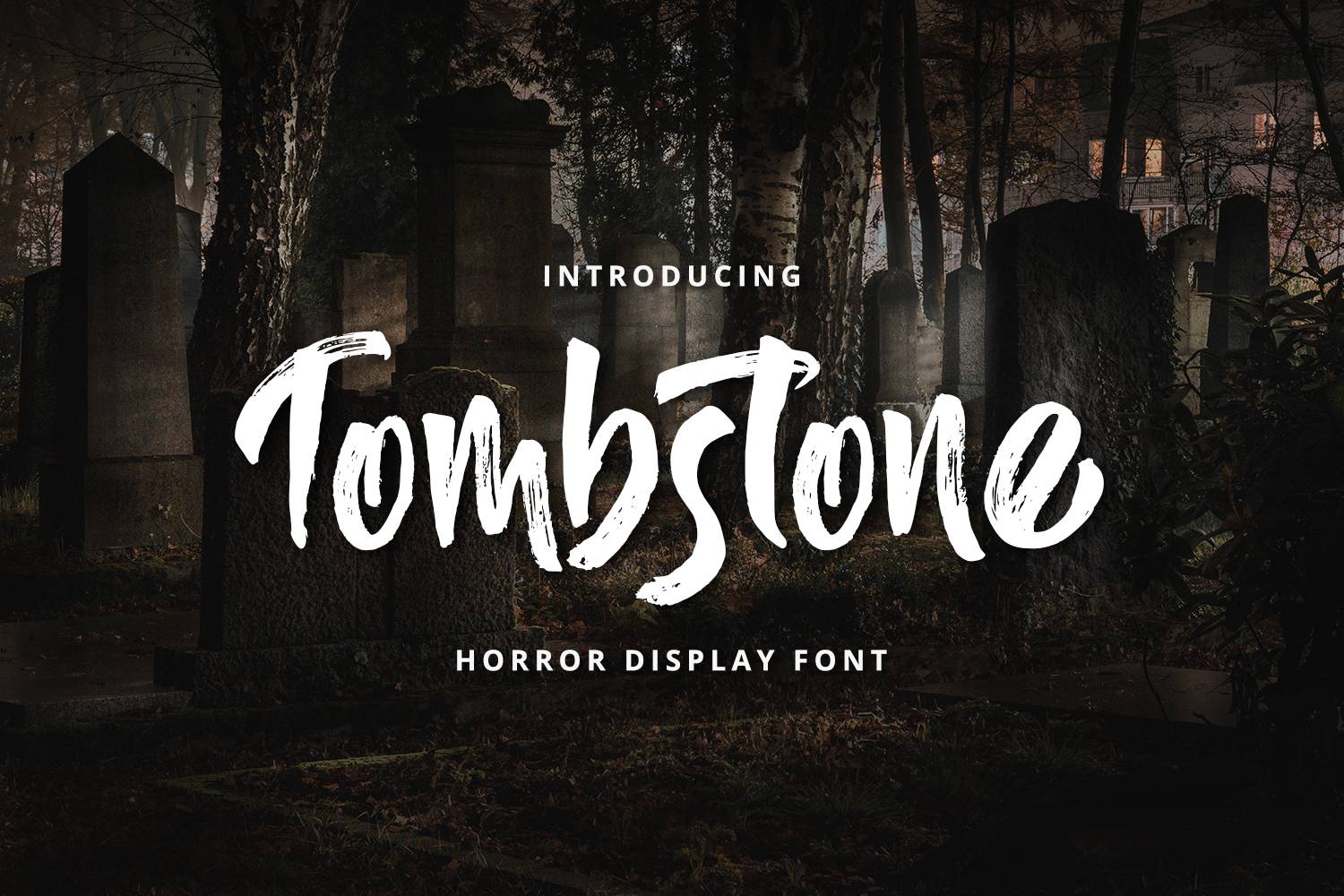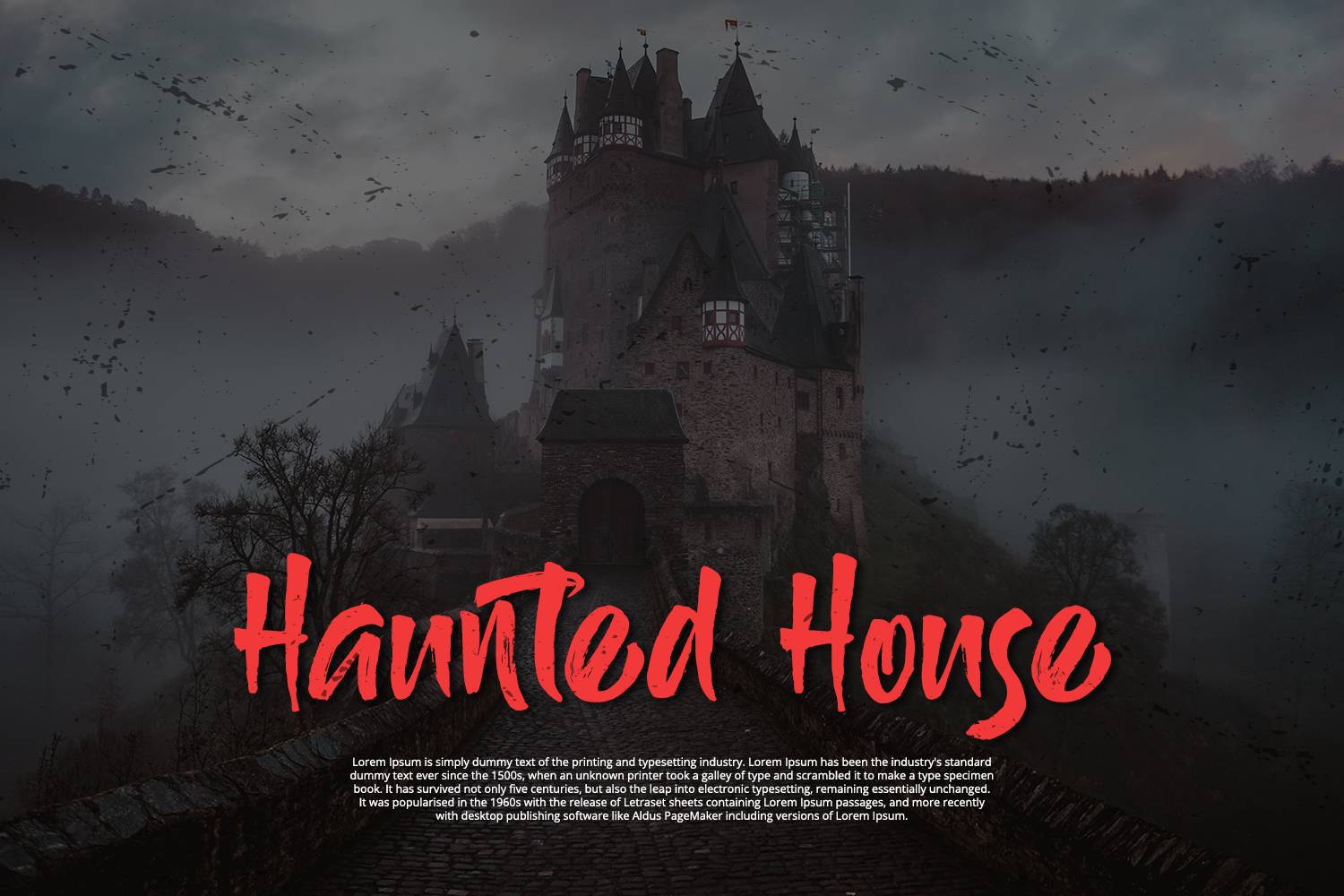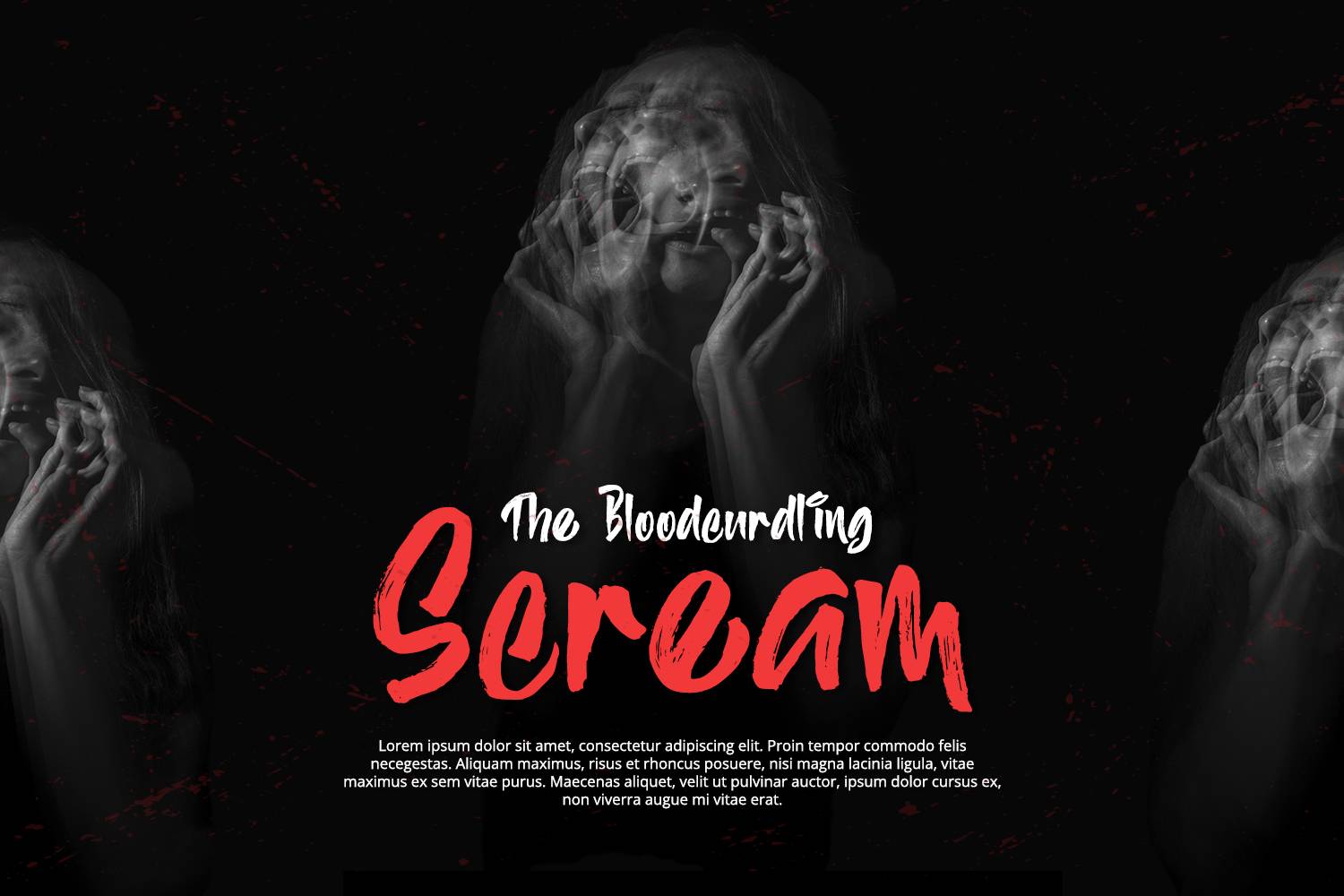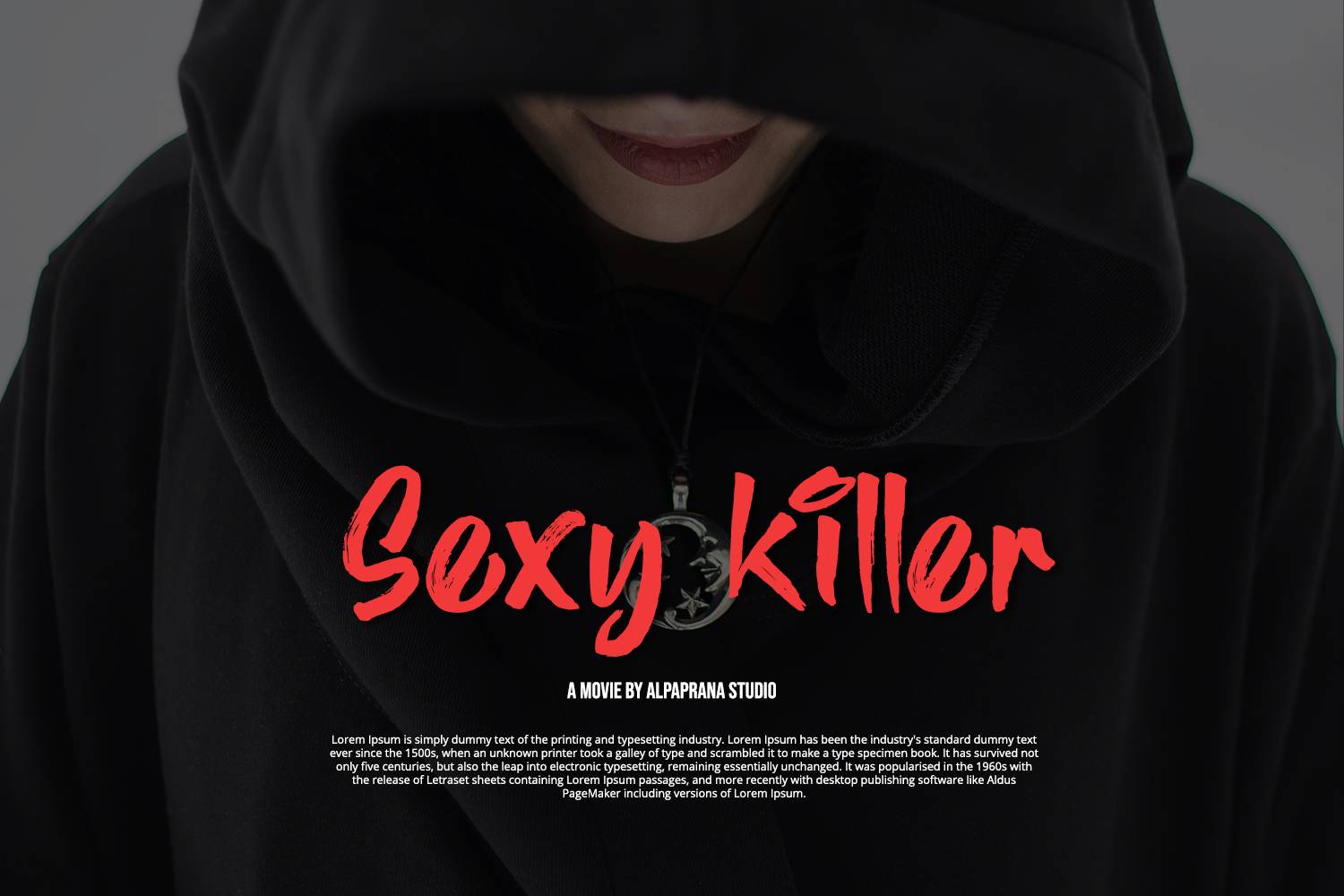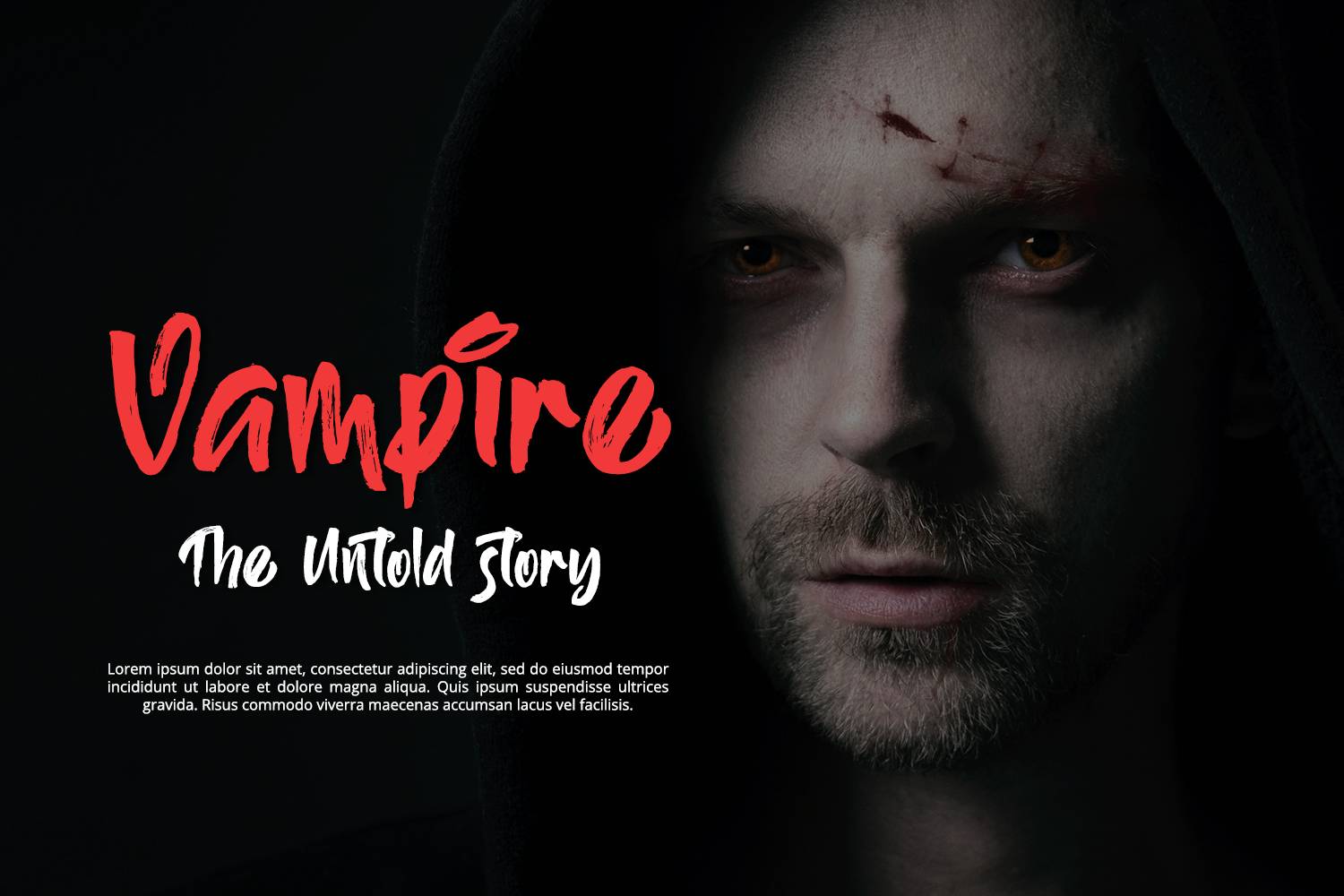
Tombstone is a bold, expressive brush script font with a rough, hand-painted texture that adds a raw, creative energy to any design. Its slightly irregular strokes and casual feel make it perfect for artwork, posters, branding, and projects that want to convey a sense of individuality and artistic flair. This font works best for eye-catching headlines and logos where personality and a handcrafted look are key.
Tombstone Font
About Tombstone Font